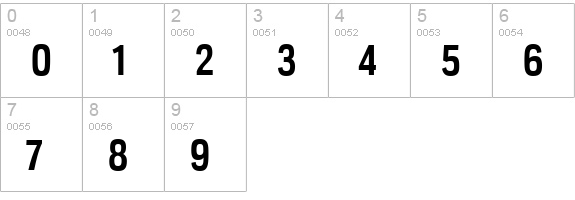
Veriox Sb Font Details
Veriox Sb is a sophisticated and elegant font that exudes a sense of modernity and professionalism. With its sleek lines and stylish curves, this font is perfect for creating eye-catching designs that command attention. Whether you're working on a branding project, a logo design, or a marketing campaign, Veriox Sb will elevate your work to the next level. What's even better is that Veriox Sb is completely free to use! You can easily download this stunning font at FontsMarket.com and start using it in your projects right away. Don't miss out on the opportunity to add this versatile and visually appealing font to your collection. Download Veriox Sb now and unleash your creativity!